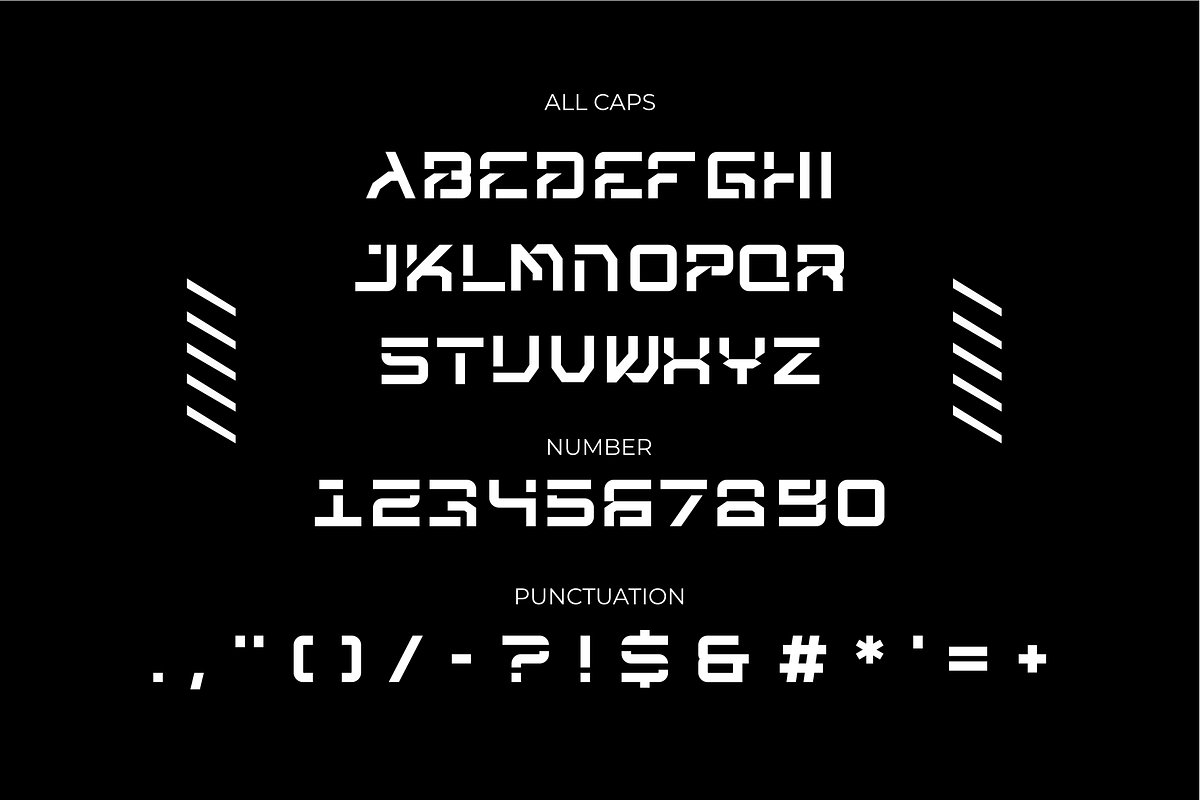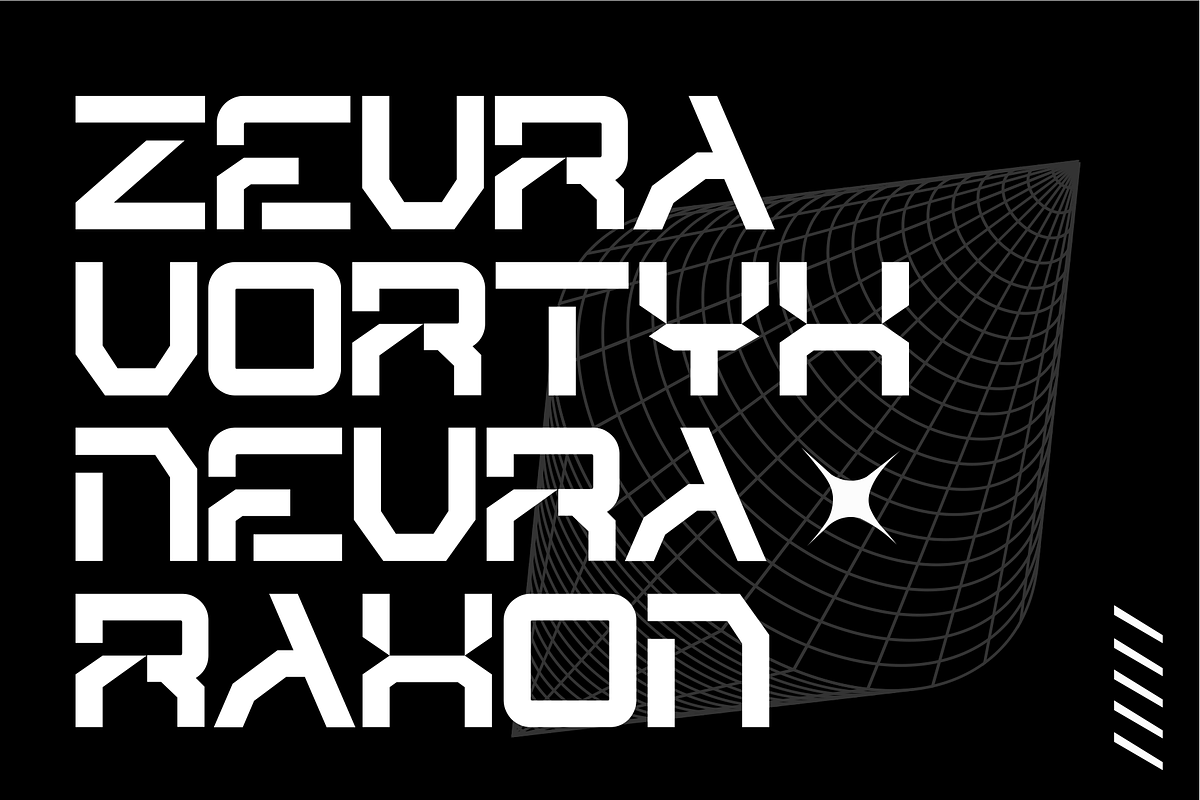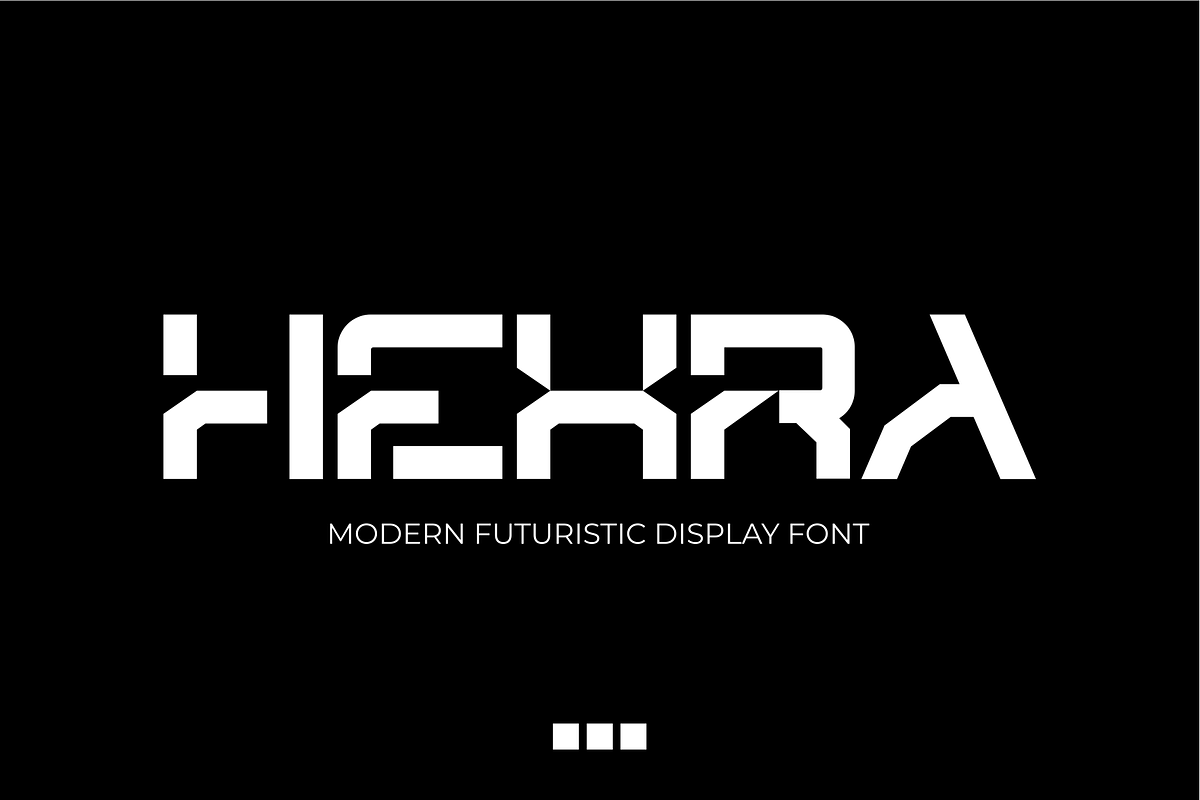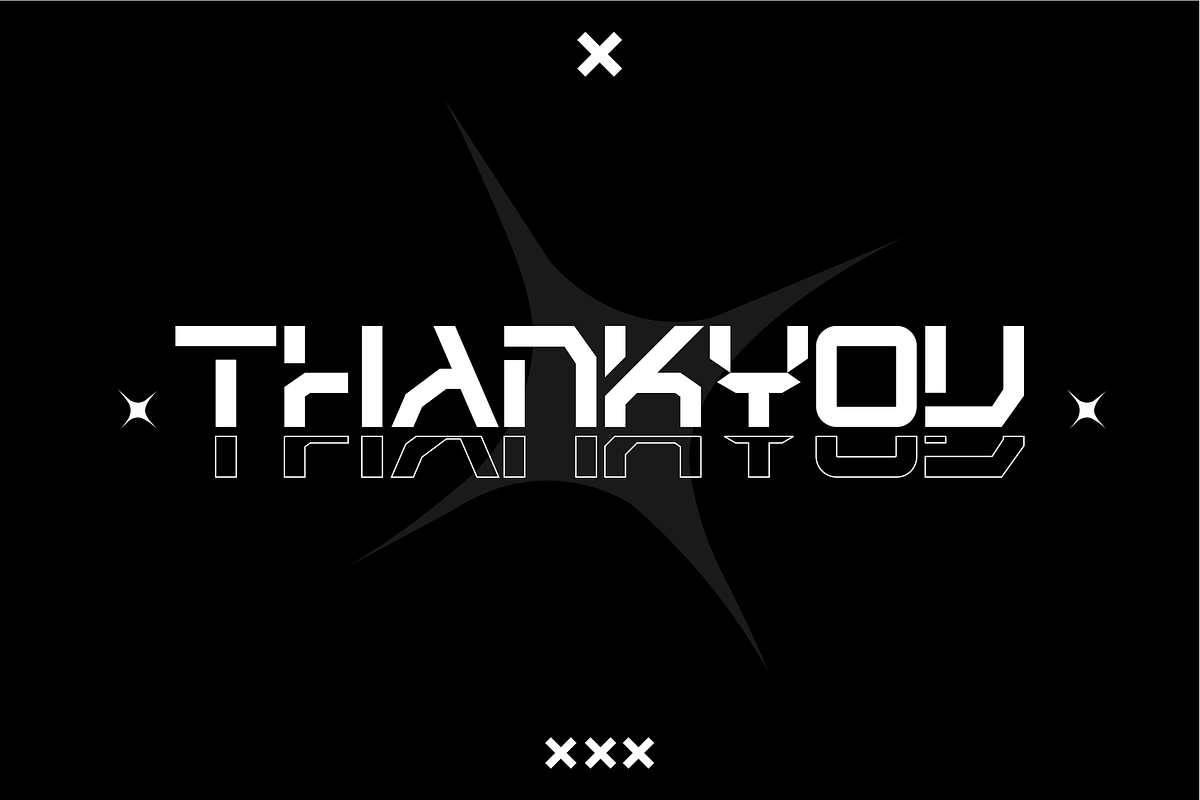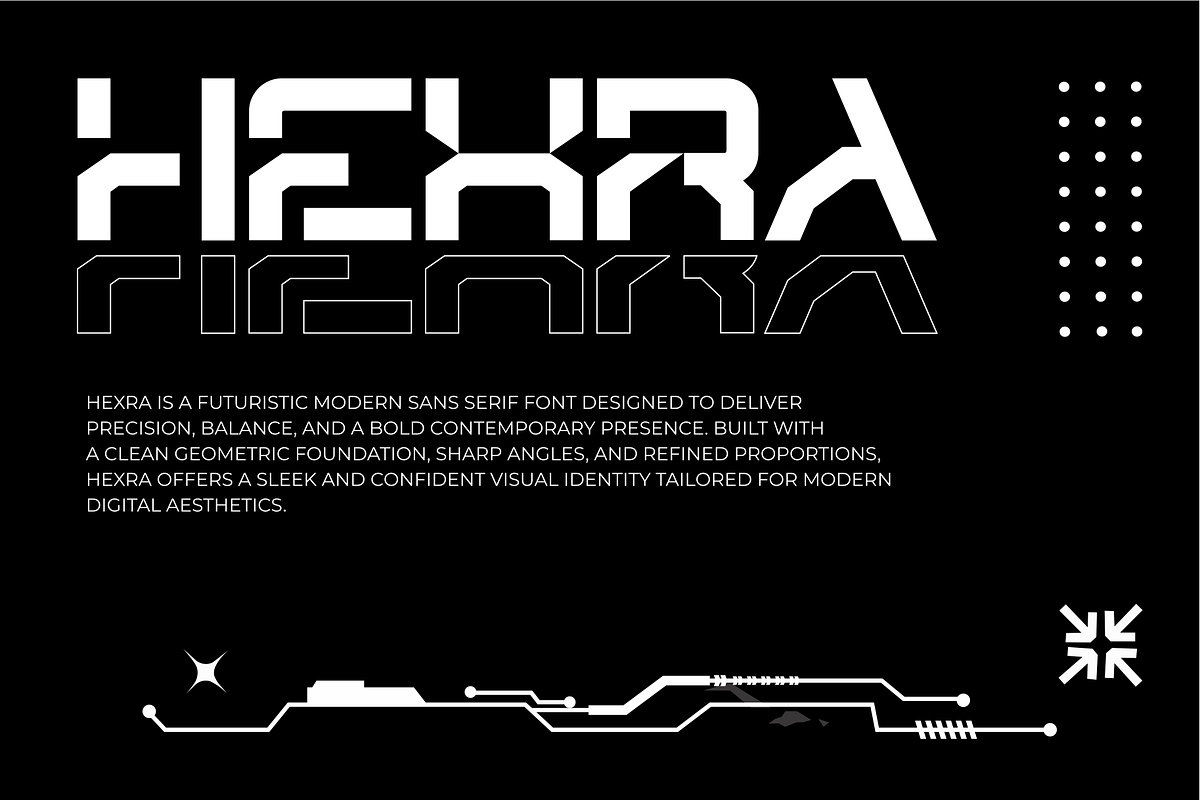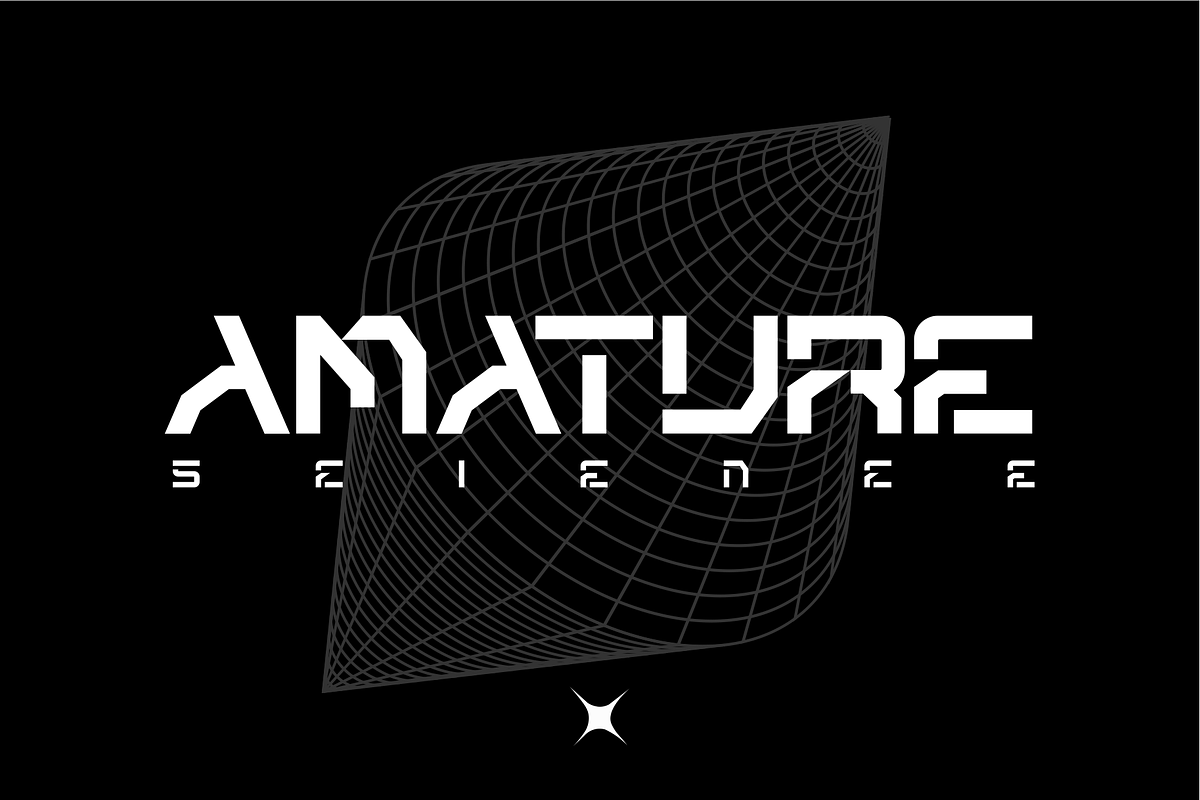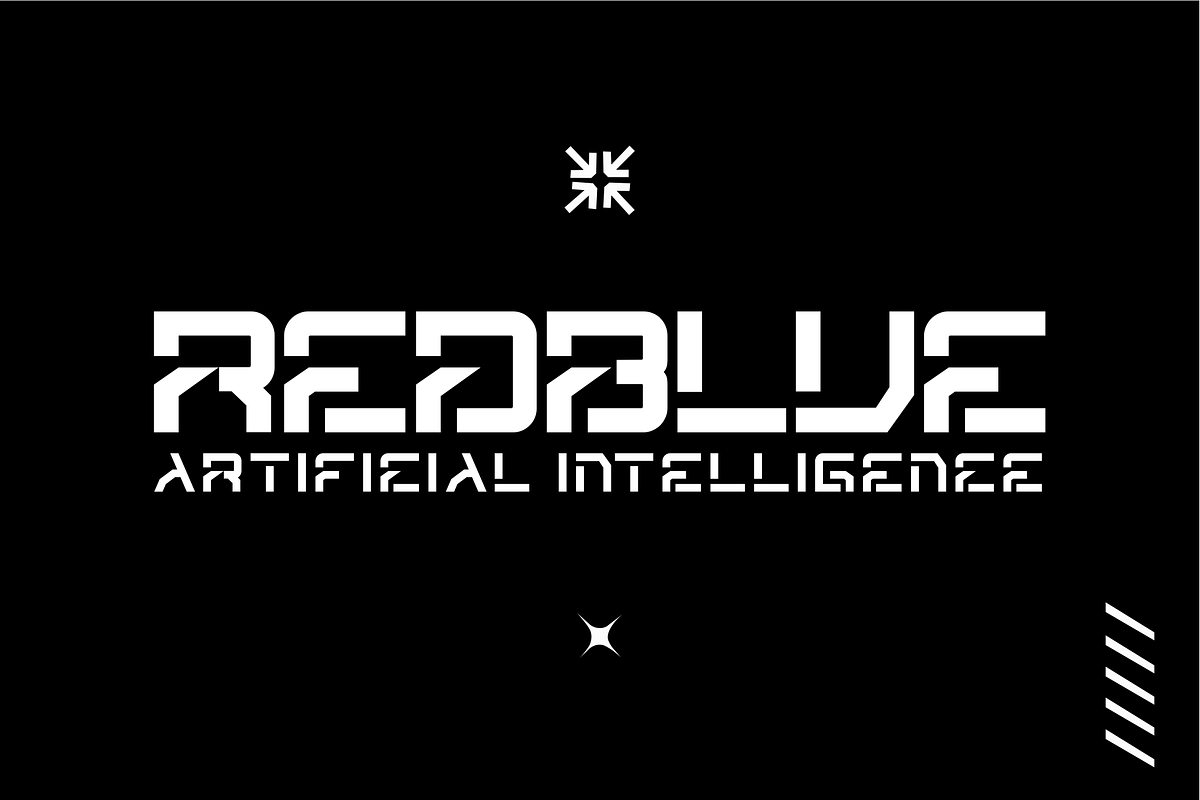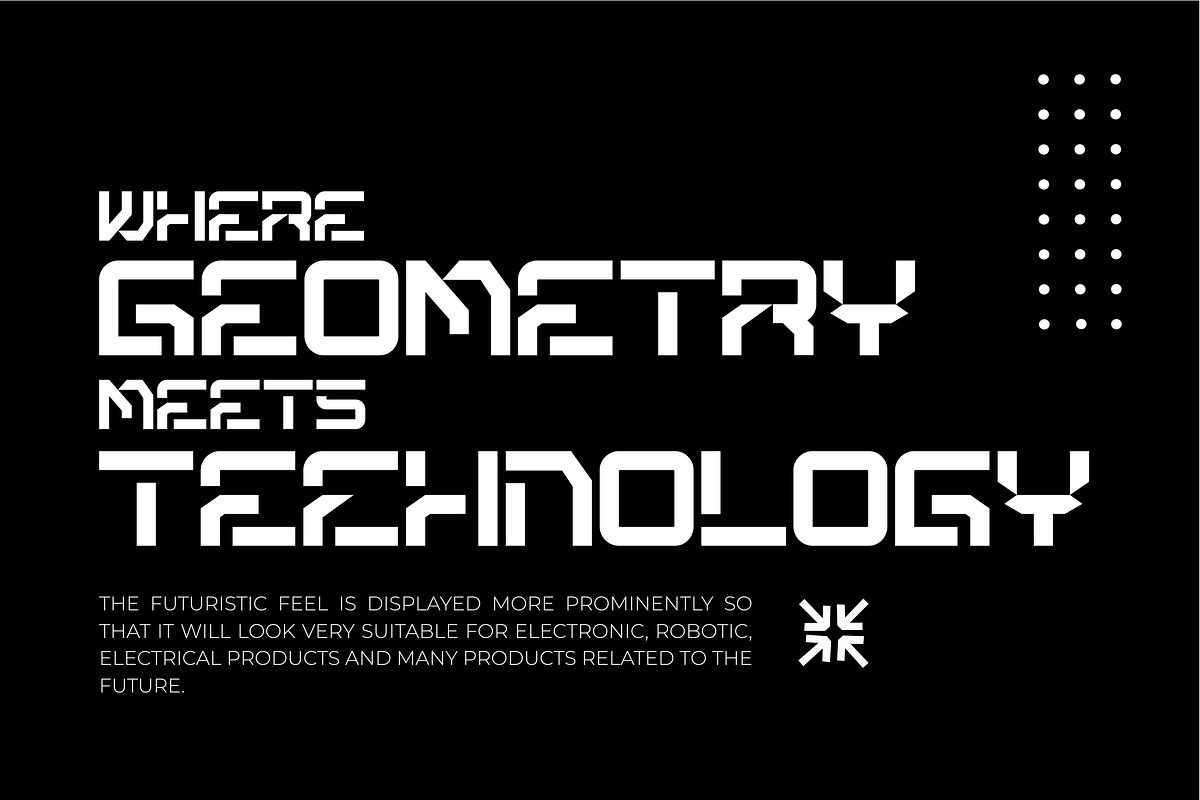
HEXRA – Futuristic Display Typeface
HEXRA is a futuristic display typeface created to deliver a clean and modern visual identity. Designed with a focus on contemporary technology and digital aesthetics, HEXRA brings a strong futuristic impression that feels confident, sharp, and forward-thinking.
Built with precise geometric shapes, balanced proportions, and crisp line construction, HEXRA offers a distinctive display style while remaining clear and readable. This makes it an excellent choice for headlines, logos, posters, and branding where a modern and high-tech tone is required.
HEXRA is designed to support creative projects that aim to look innovative, dynamic, and visually impactful, making it suitable for both digital and print applications.
HEXRA Font Features
- Numerals, symbols, and punctuation
- OpenType features for modern typography use
HEXRA Is Perfect For
- Futuristic and modern branding
- Technology and digital-based projects
- Sci-fi titles, posters, and creative visuals
- Website headers and digital interfaces
- Gaming, esports, and cyber-themed designs
- Modern promotional and display materials
Whether you’re building a tech-focused brand or creating futuristic visual content, HEXRA helps your designs communicate clarity, strength, and a modern digital styl